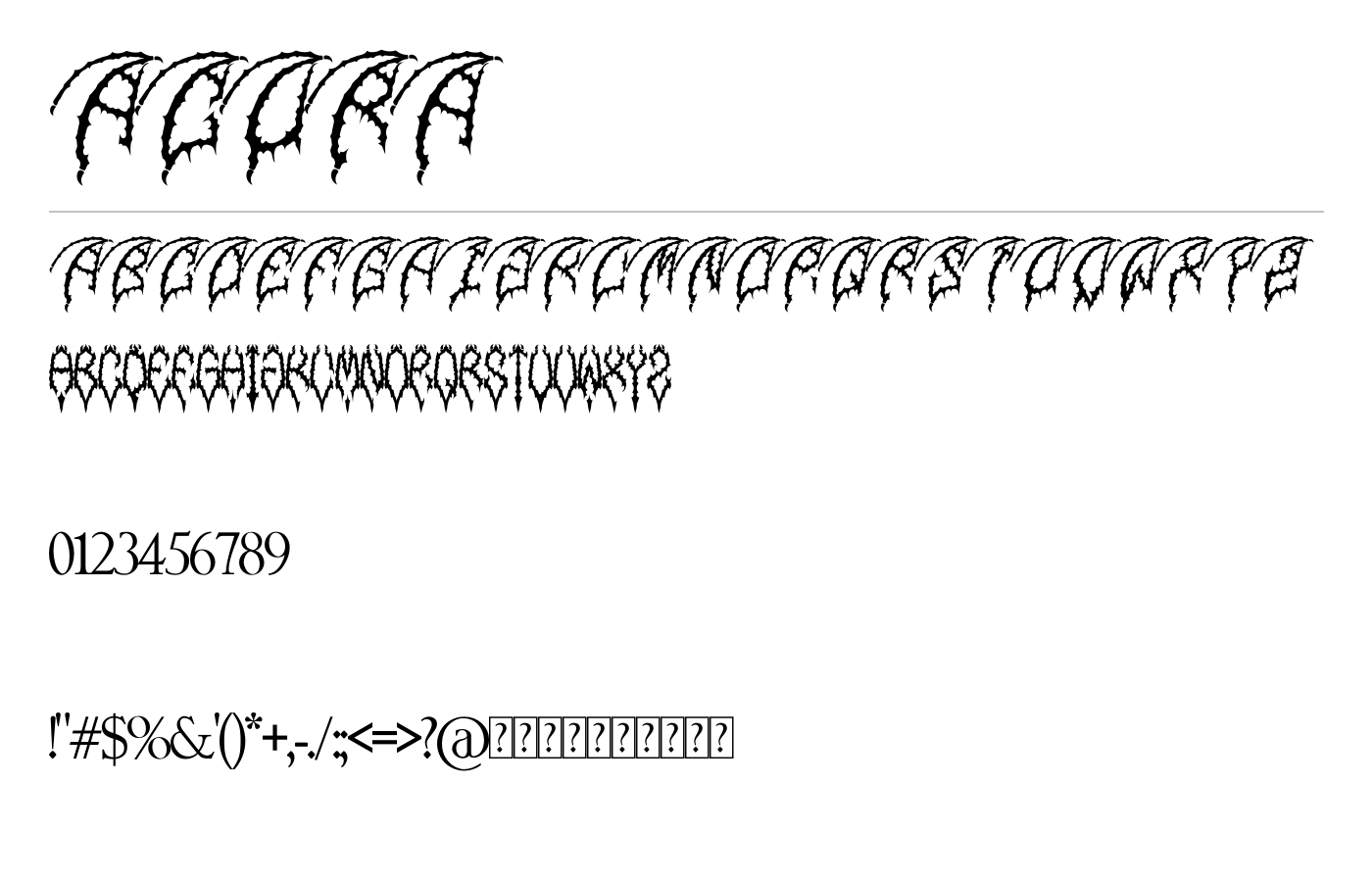
ACURA is a highly decorative and stylized display font with sharp, jagged edges and a Gothic-inspired look, making it bold and striking. Its condensed letterforms and dramatic texture give it a dark, intense personality that works well for horror-themed designs, edgy branding, and standout headlines where a dramatic impact is needed. This font is best suited for eye-catching posters or logos that require a unique, fierce visual presence rather than for body text.
ACURA Font